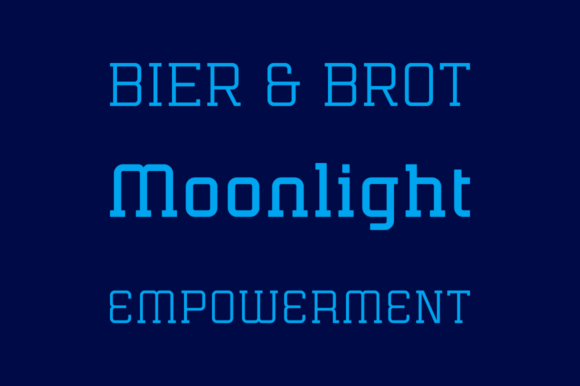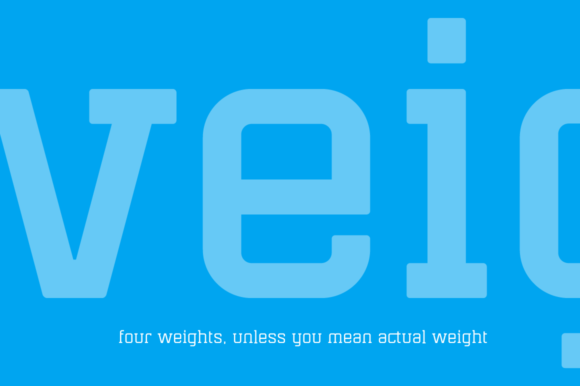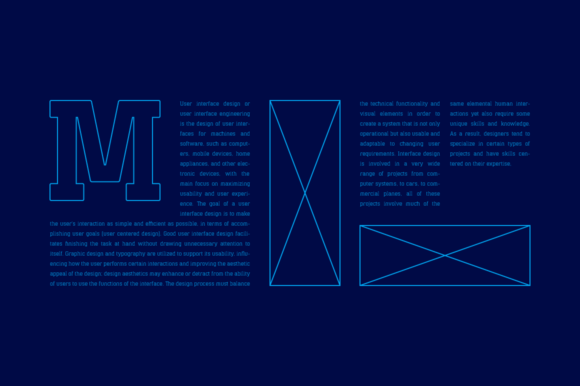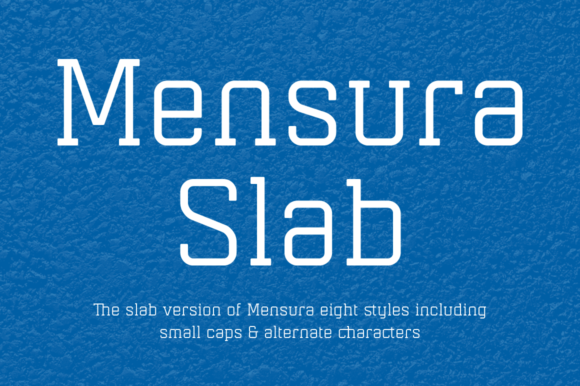
Introduction to Mensura Family Font
Mensura font family has been designed for Graviton Font Foundry by Pablo Balcells in 2012.
It is a modular, geometric typeface with subtle rounded angles that provides a soft, pleasent appearence It has been conceived to be primarily a display typeface, but given its clarity it can also be used for composing short and intermediate length texts.